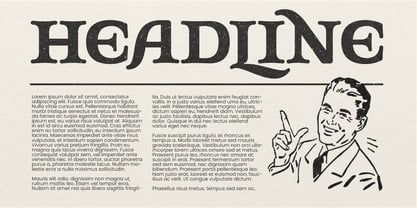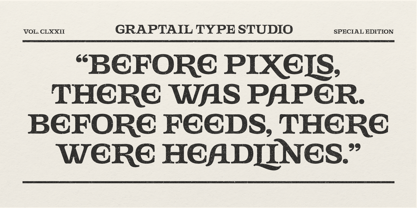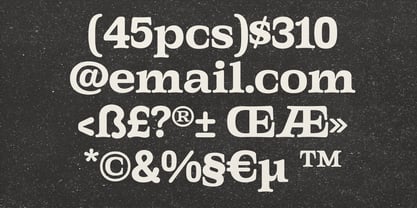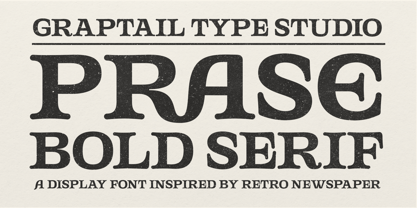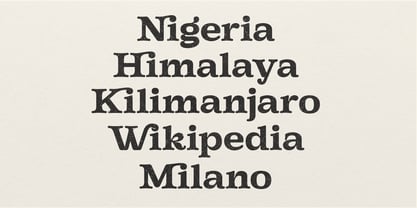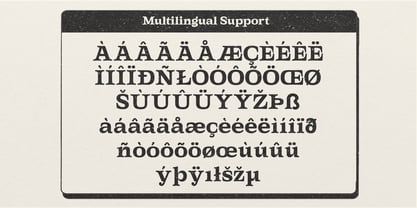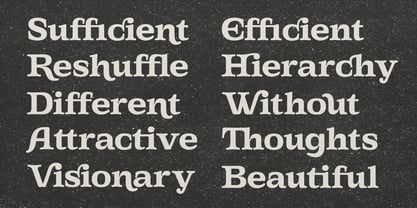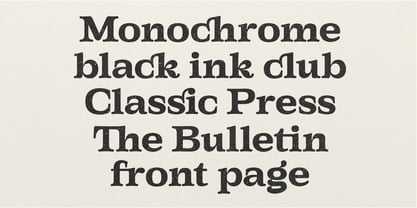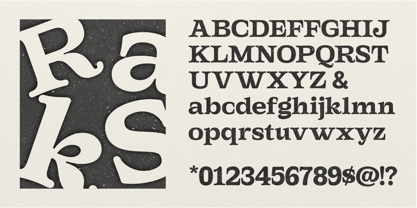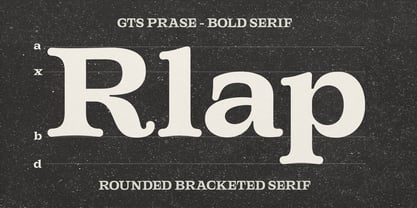
Gts Prase
Die Schriftfamilie Gts Prase wurde von Teuku Deky Firnanda entworfen und von Graptail veröffentlicht. Gts Prase enthält 1 Stile. Mehr über diese Familie
Gts Prase – Bold Serif is a robust, character-driven serif typeface that draws inspiration from the newspaper lettering of the 80s and 90s. It embodies the bold, compact, and slightly textured essence of vintage print, adding an authentic editorial flair to contemporary design projects. With 33 Ligature Features and 17 Stylistic Alternates, Gts Prase provides extensive creative versatility, making it ideal for crafting expressive titles, impactful headlines, and visually engaging layouts. Each letterform is meticulously designed to create a strong rhythm and a polished retro aesthetic. This typeface is perfect for: • Newspapers & editorial layouts • Packaging design • Film titles & opening sequences • Posters, covers, and promotional materials • Merch and T-shirt designs • Branding with a retro personality.